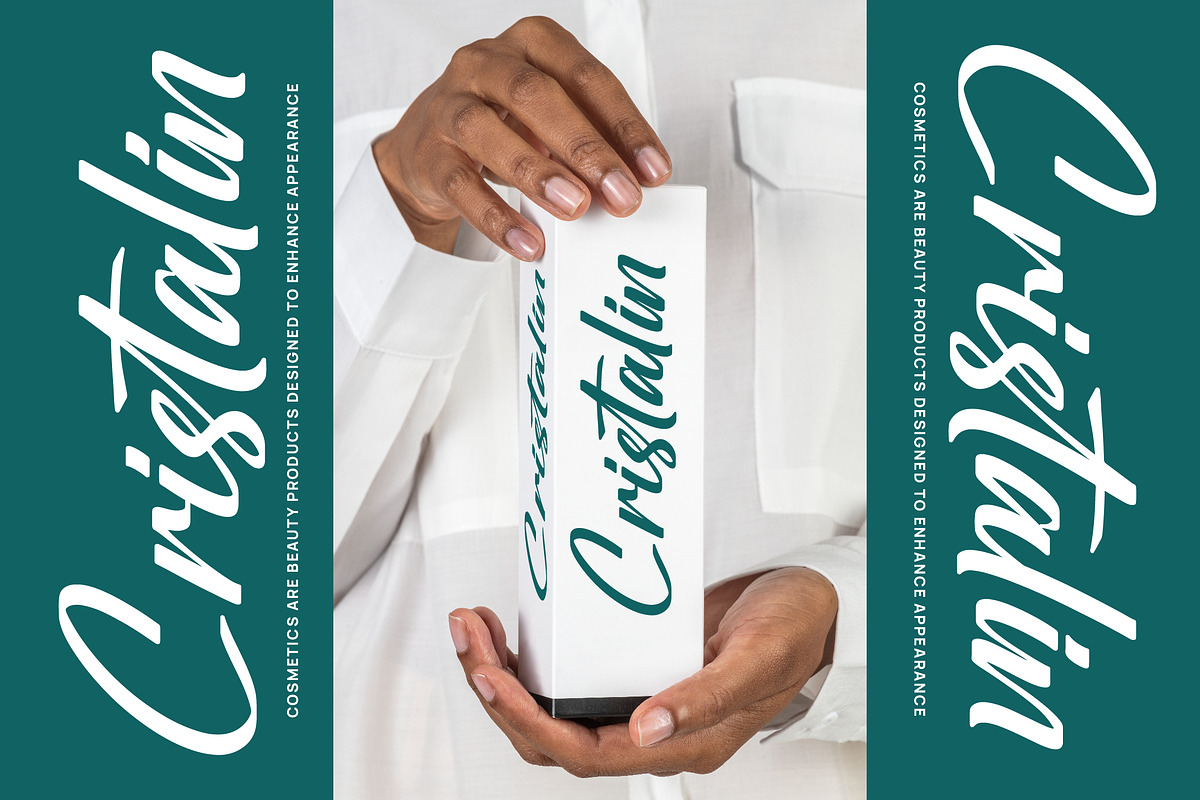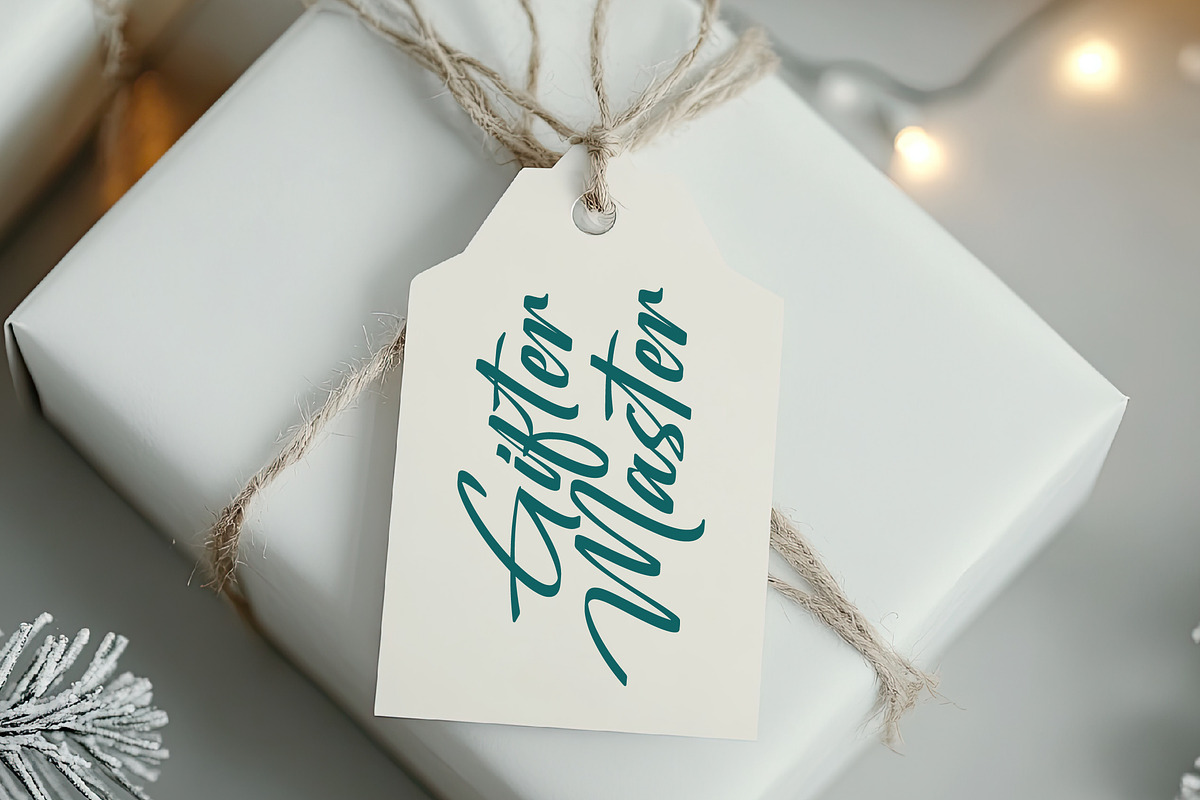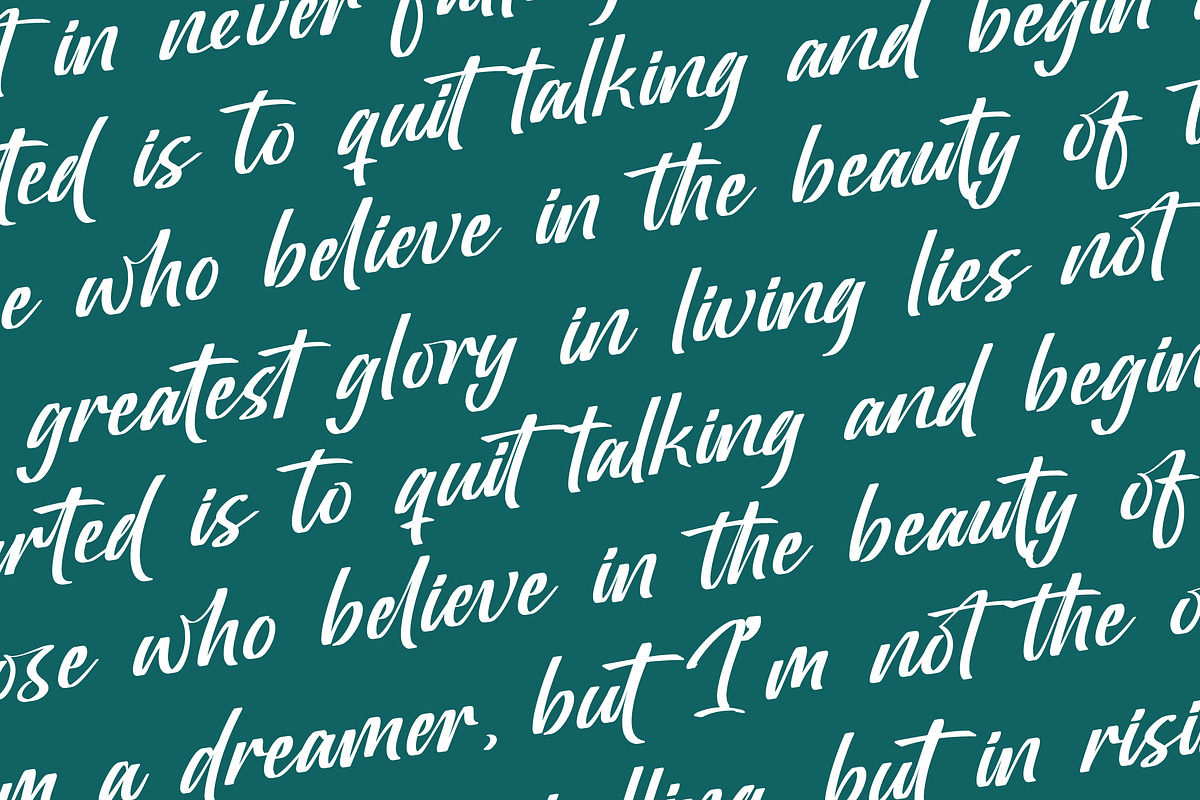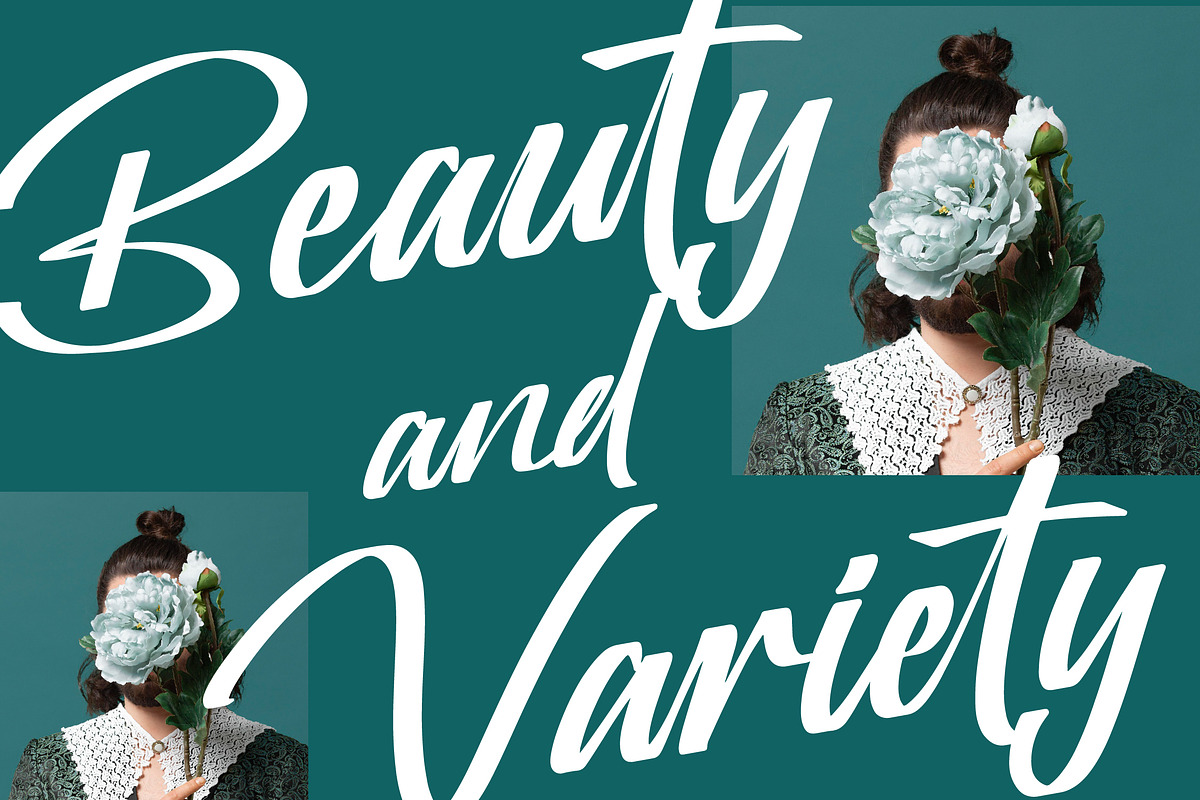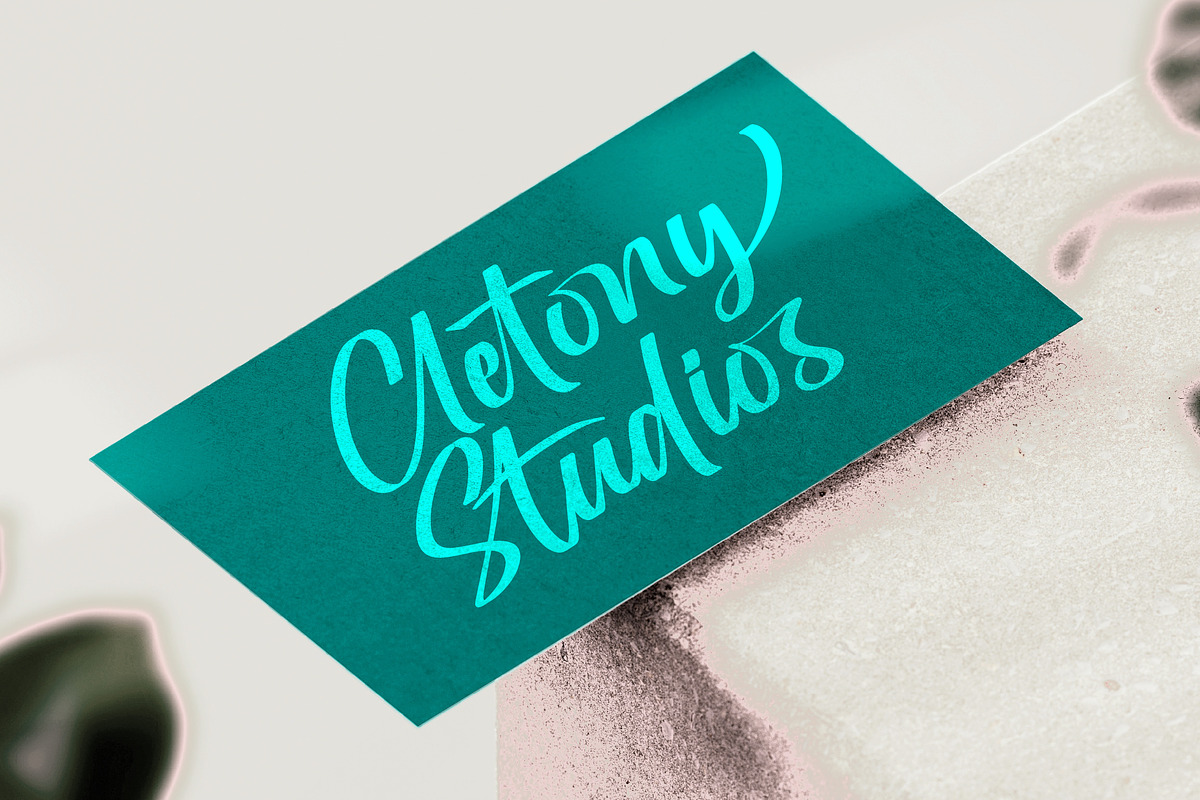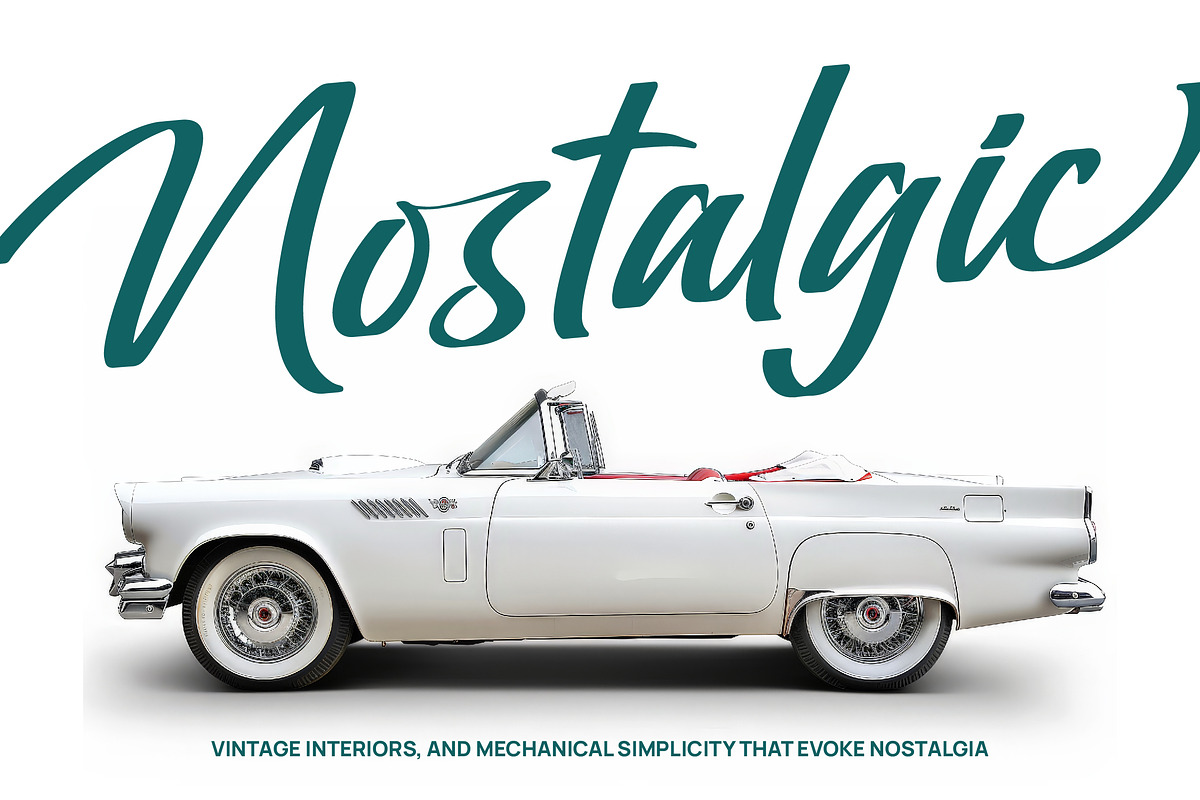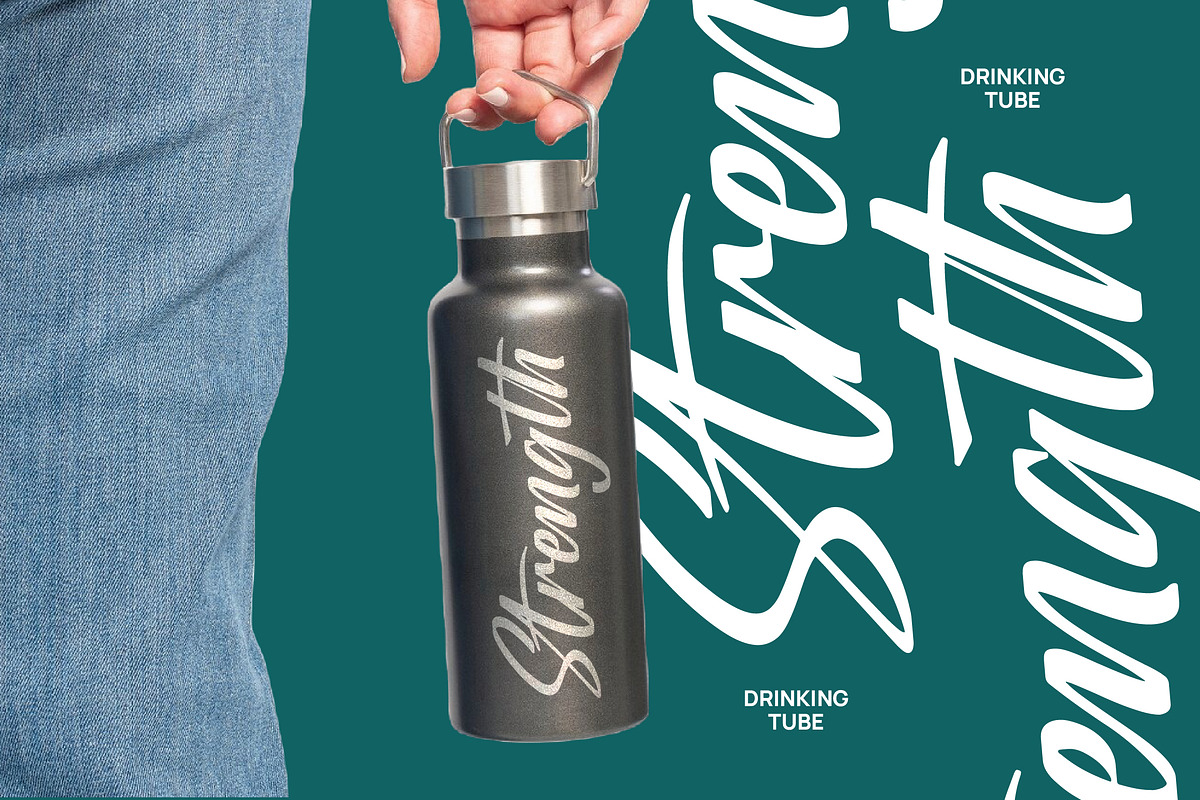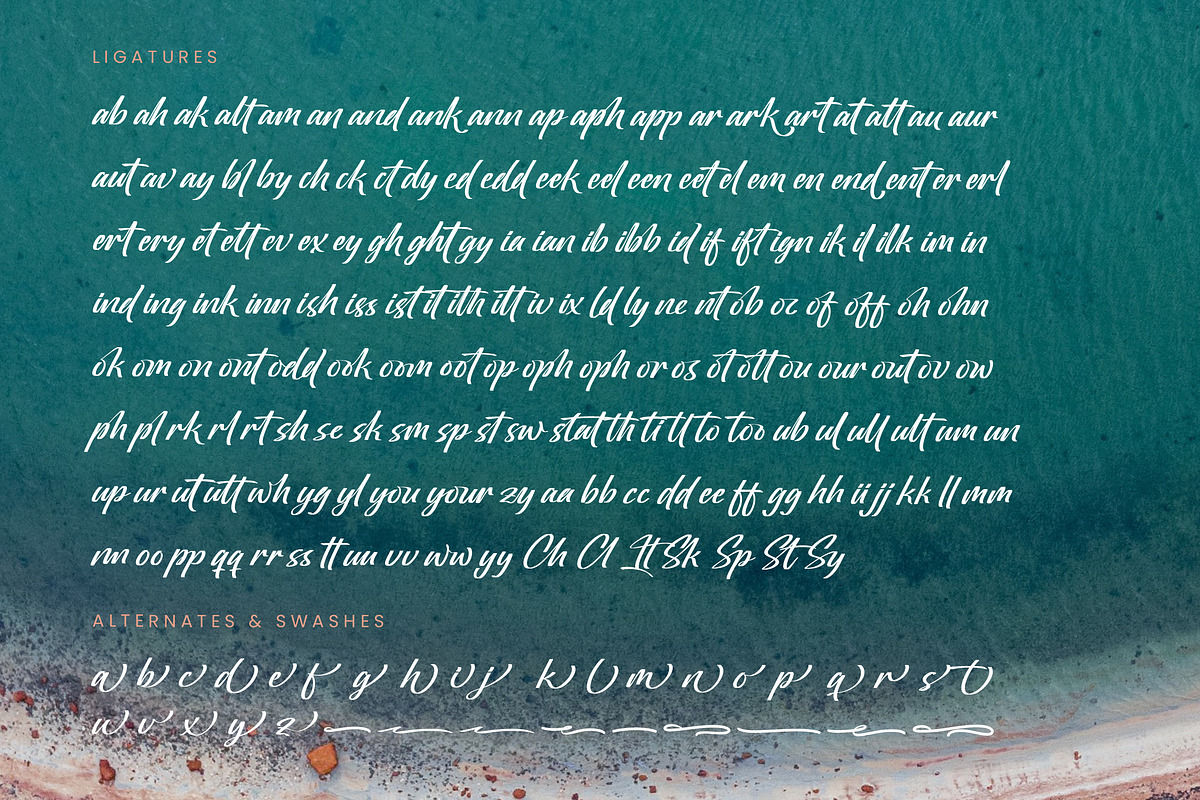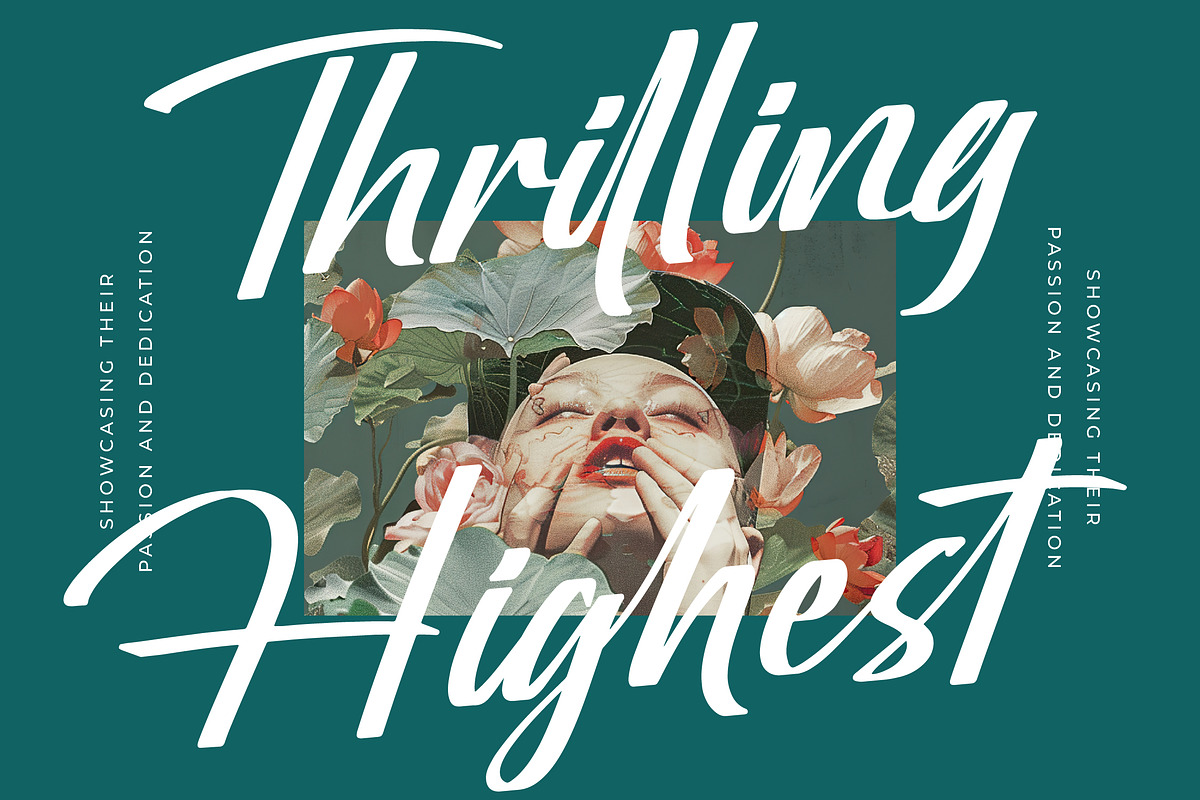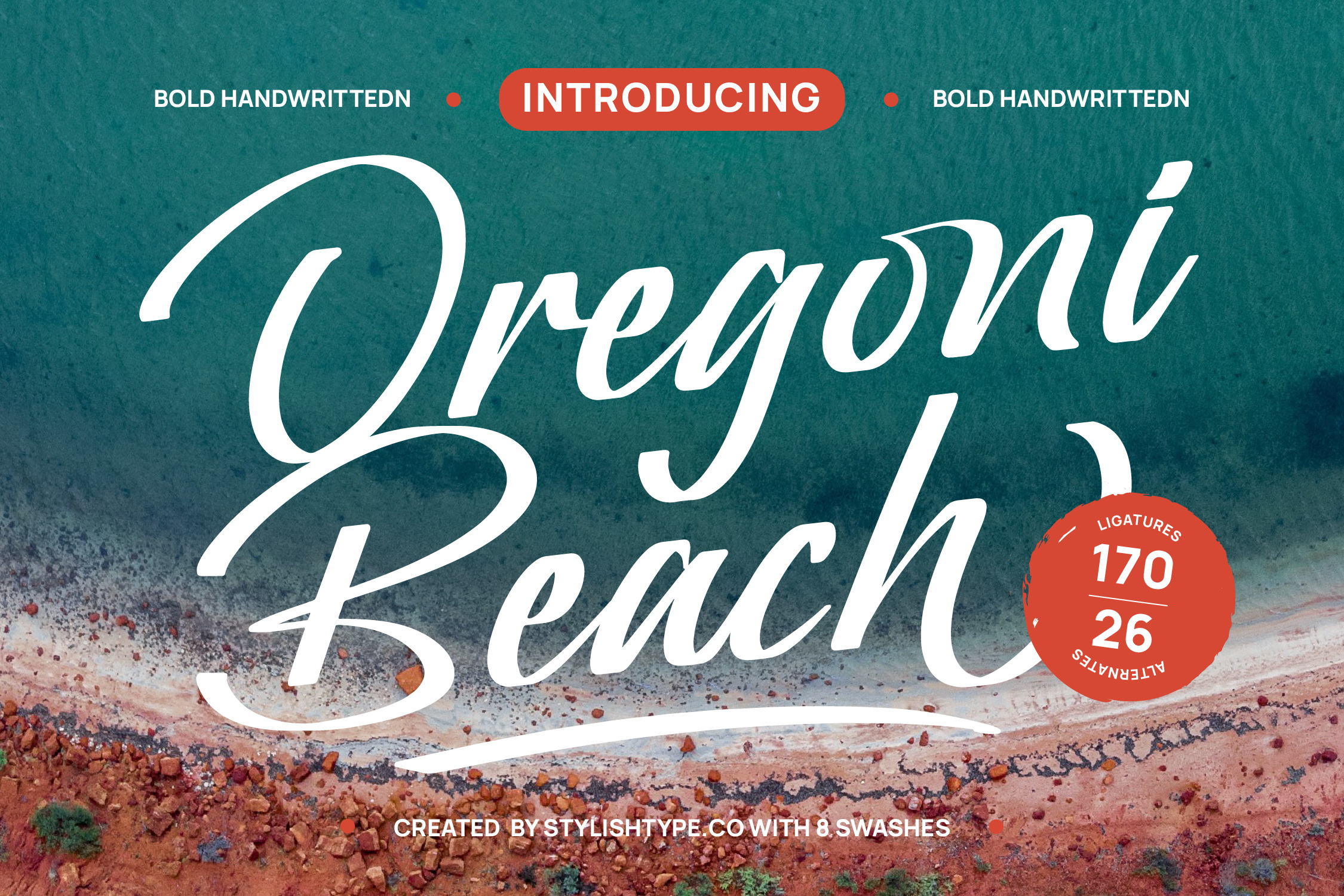
Oregoni Beach Bold Handwritten Font
Oregoni Beach - Bold Handwritten Font , from Stylishtype.Co , Suitable for any projects such as: logos, branding projects, homeware designs, product packaging, mugs, quotes, posters, shopping bags, t-shirts, book covers, name card, invitation cards, greeting cards, label, photography, watermark, special events, and all your other luxury and beautiful projects that need a Luxury Script taste.
- 170 Ligature 26 Alternates & Swashes